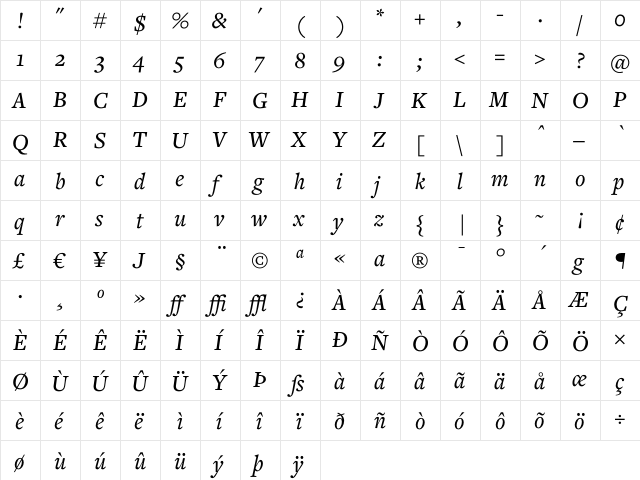
Freight Text Medium Italic Font Preview
Freight Text Medium Italic
Freight Text Medium Italic Font Details
| Style | Text Medium Italic |
| Foundry | Joshua Darden & Phil's Fonts, Inc |
| Designer | Joshua Darden |
Design Context for Freight Typeface
Freight offers clean, dependable letterforms without strong stylistic allegiance, making it a practical choice for designers who need flexibility. Its italic angle brings a sense of urgency and motion to the letterforms.
Pro Tip: Try Freight for annotation and caption copy alongside an upright companion — the contrast in angle creates a dynamic but ordered typographic system.